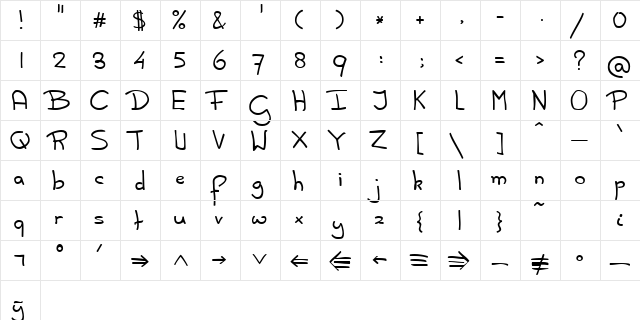
Dijkstra Regular
Design Context for Dijkstra Typeface
Dijkstra offers clean, dependable letterforms without strong stylistic allegiance, making it a practical choice for designers who need flexibility.
Pro Tip: Pair Dijkstra with a font of contrasting weight or personality to build a more expressive typographic hierarchy.